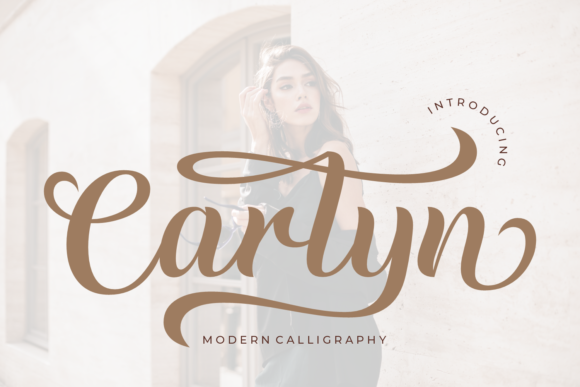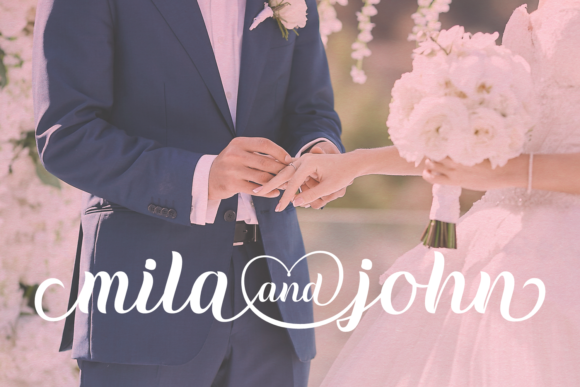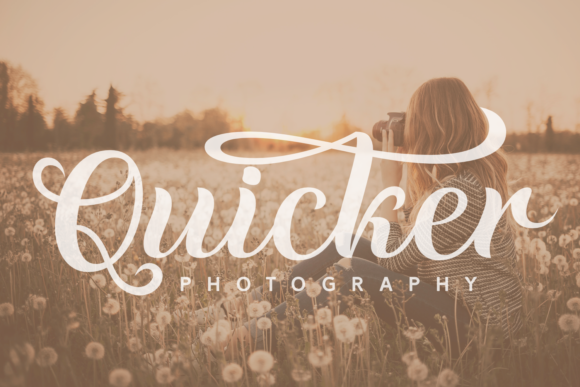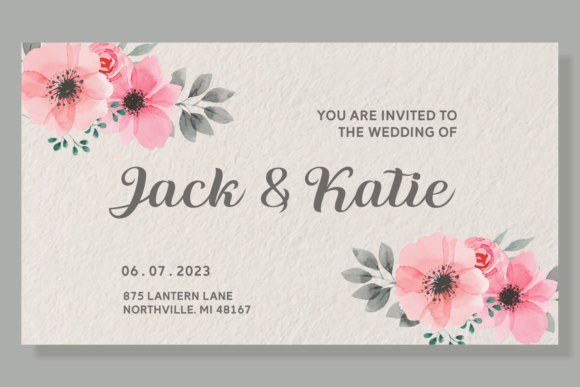
Carlyn Font: Elegant Calligraphy Font for Wedding & Logo Design
About the Carlyn Font
Make a bold statement with Carlyn Font, a powerful and memorable font. Carlyn is a stunning handwritten font featuring beautifully rounded characters and a cursive style. It is perfect for wedding designs, birthday cards, business cards, invitations, branding, apparel, and more.